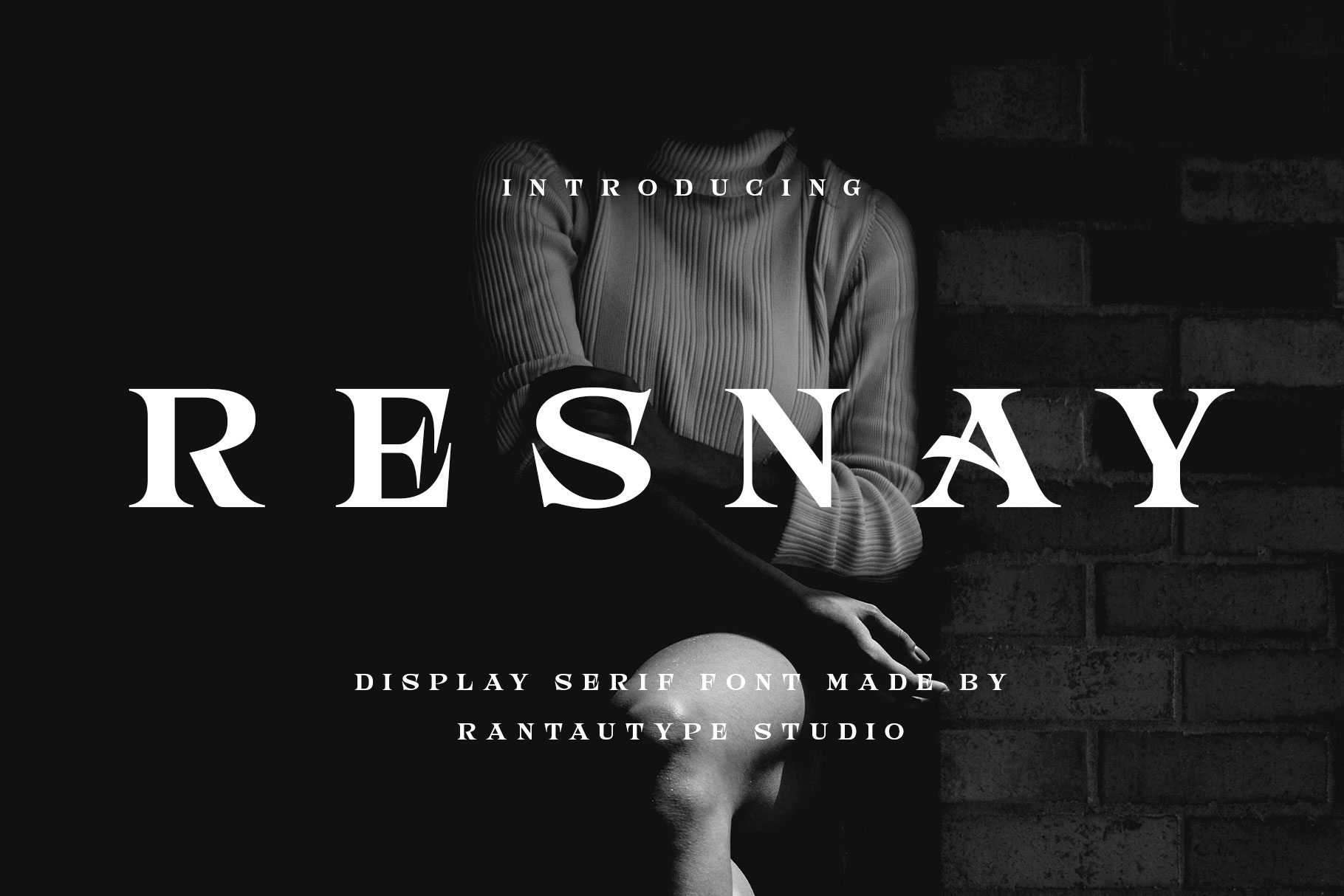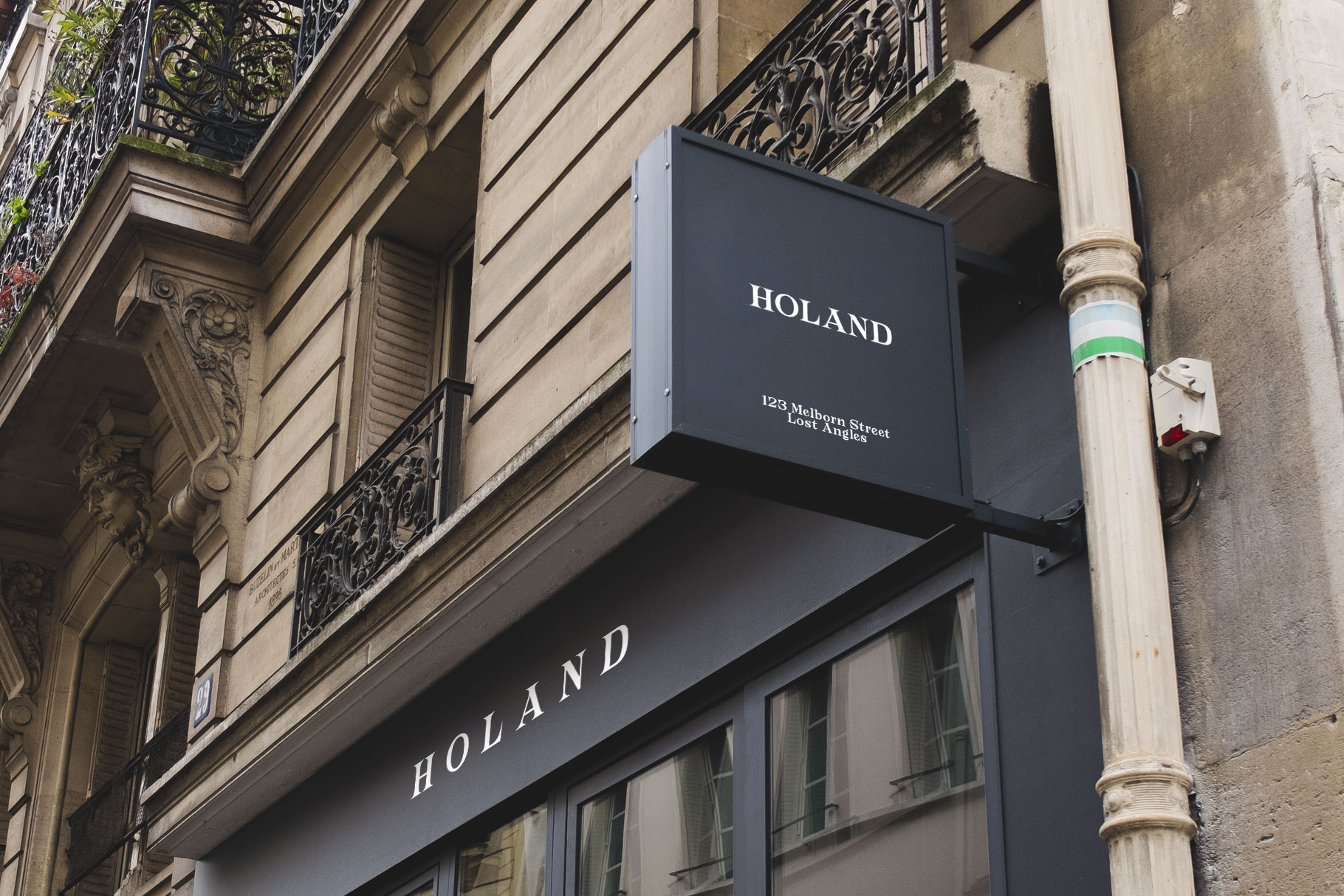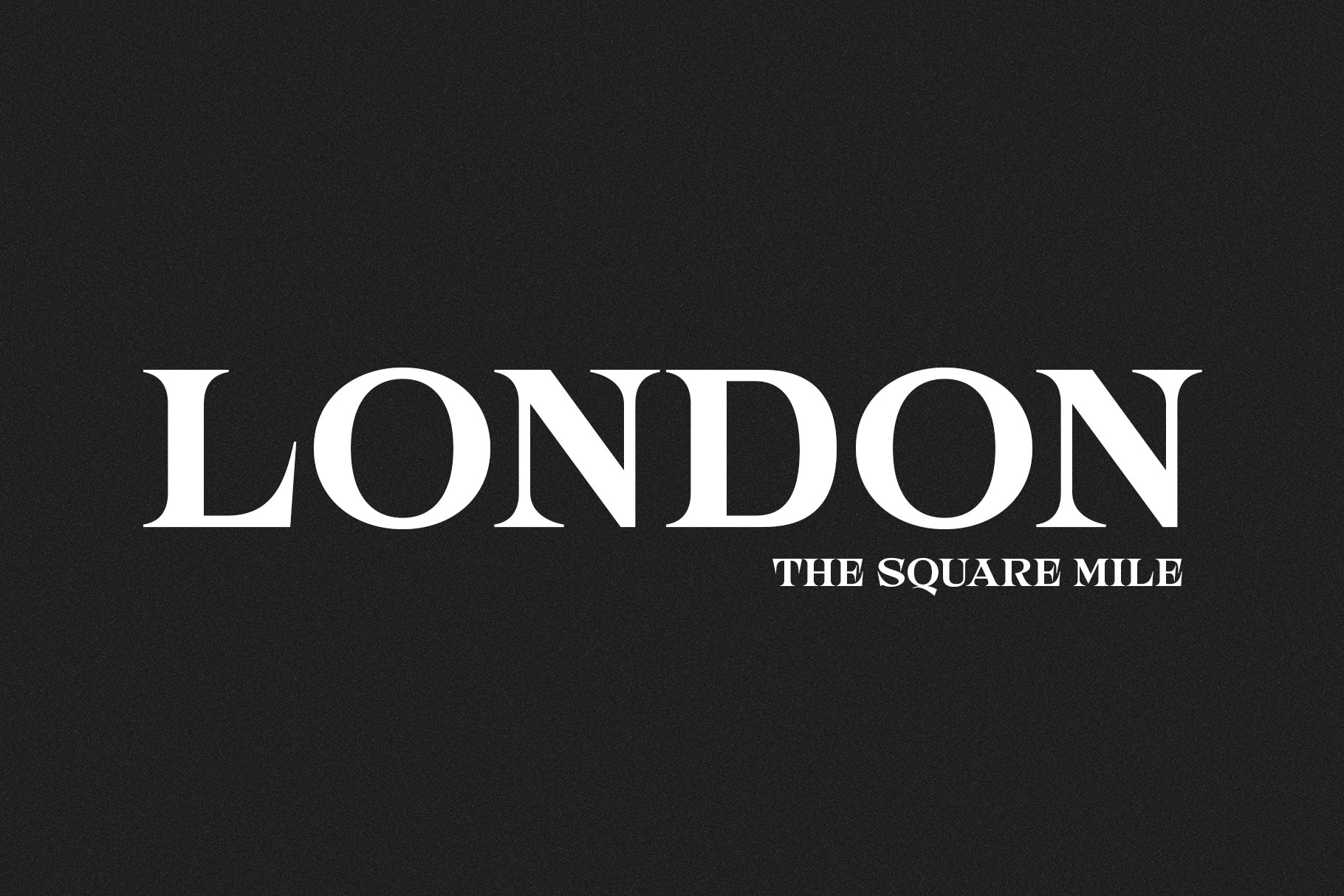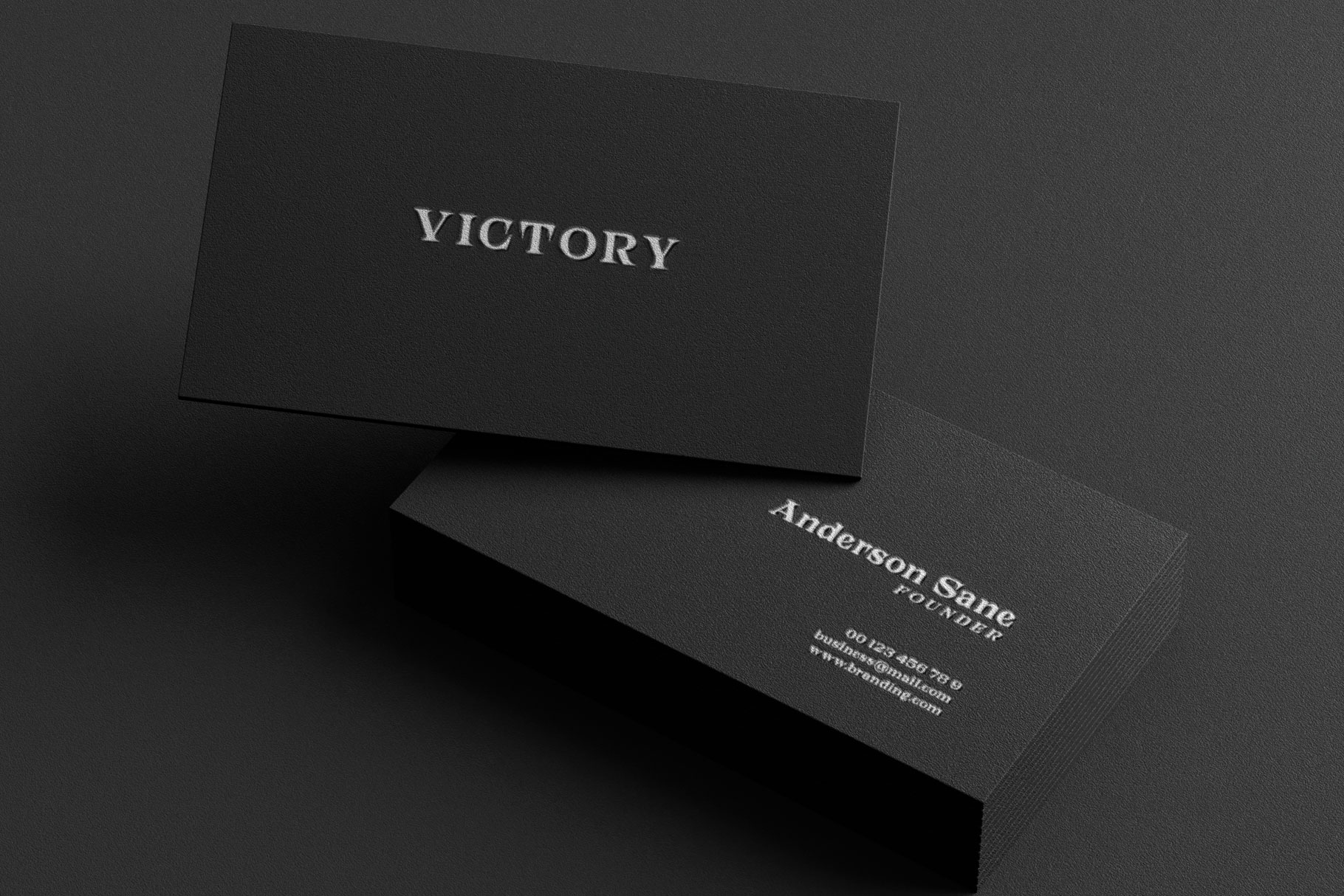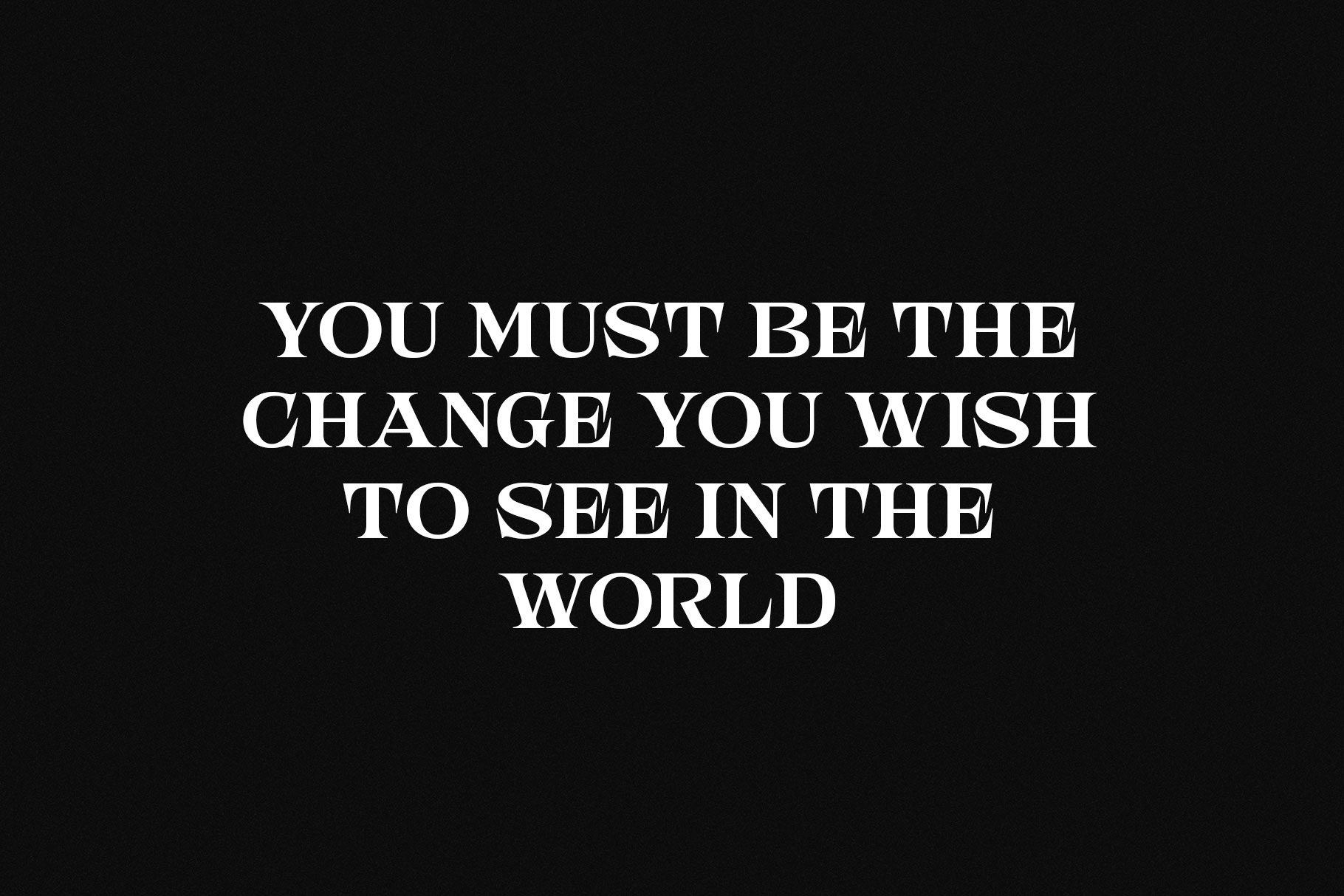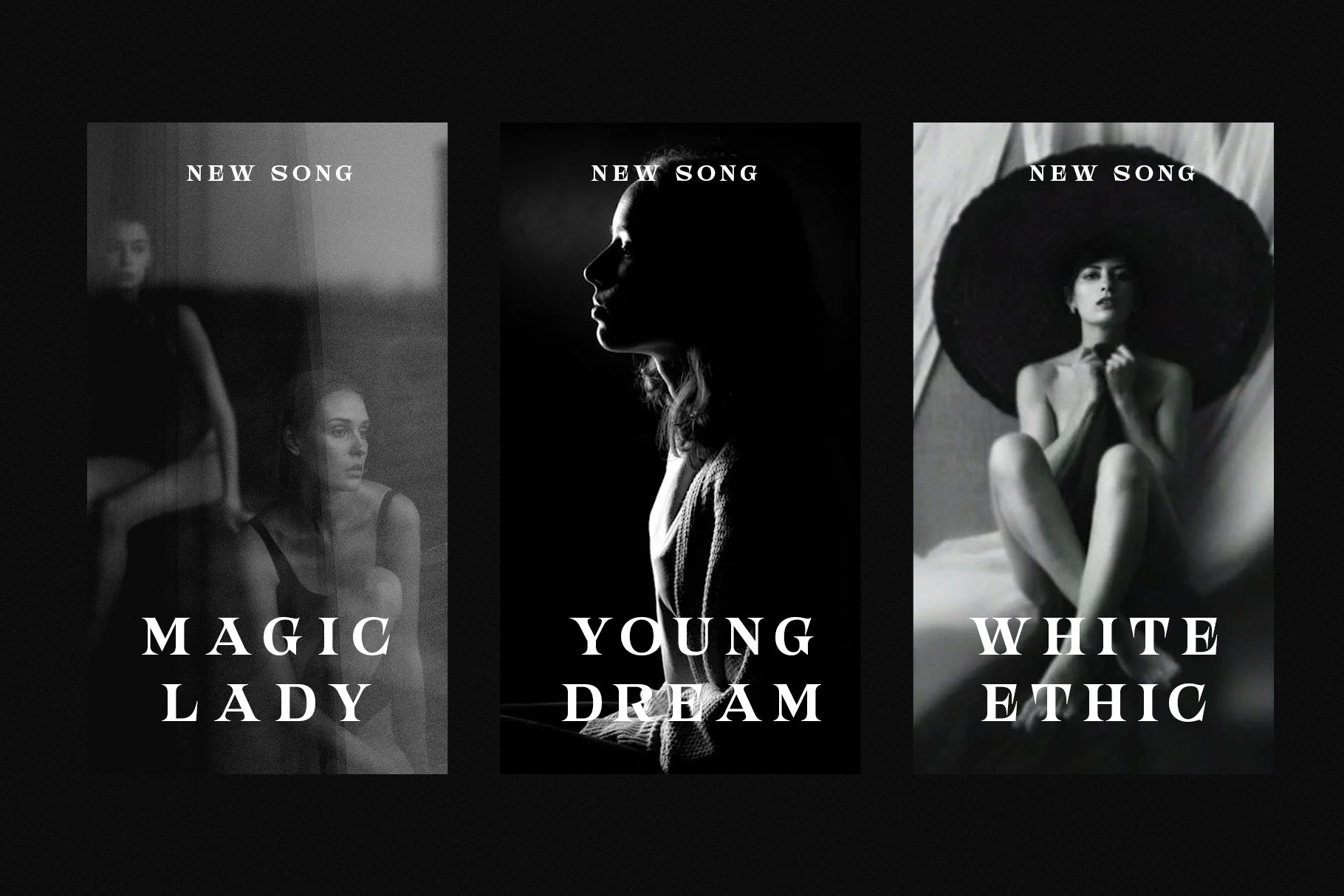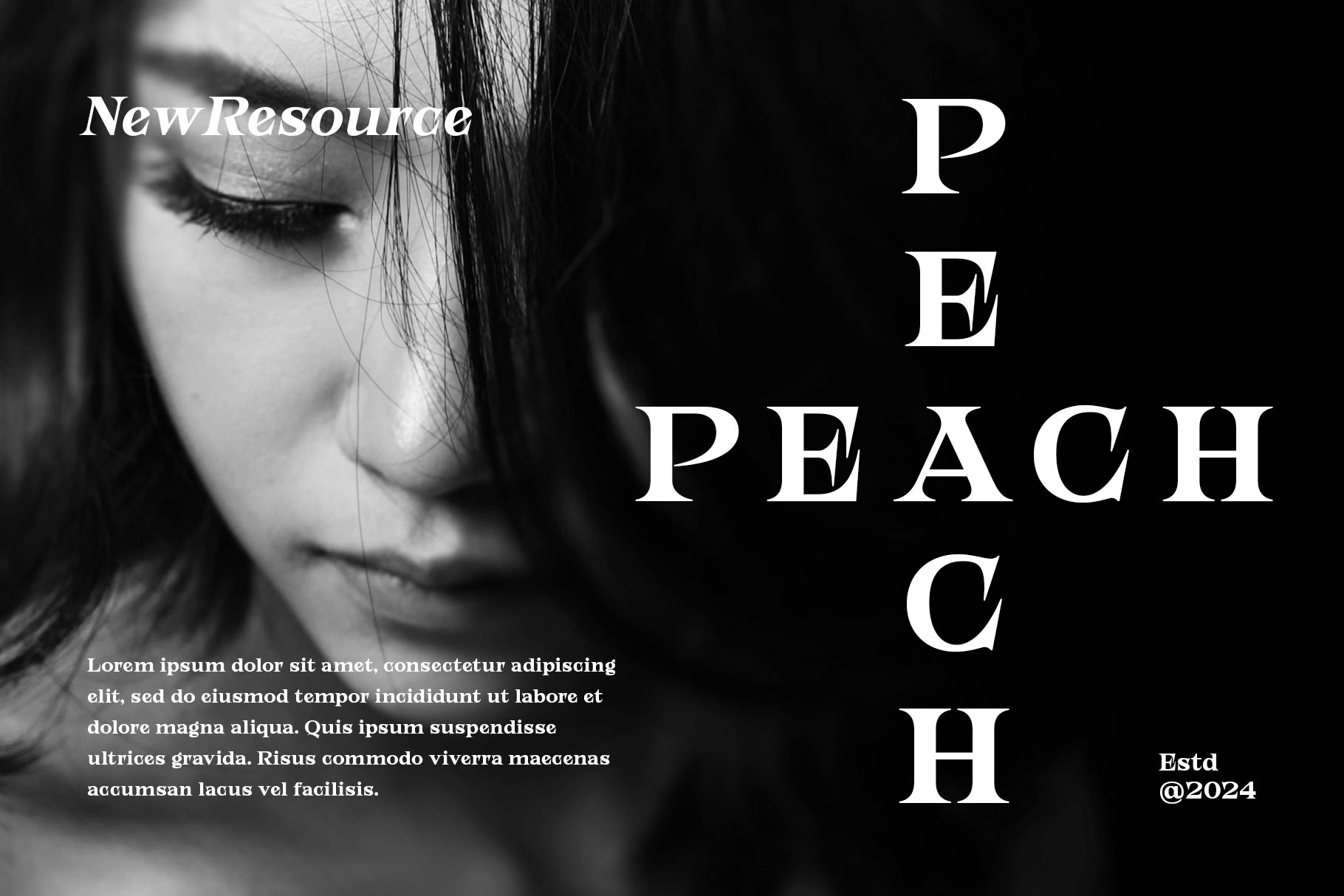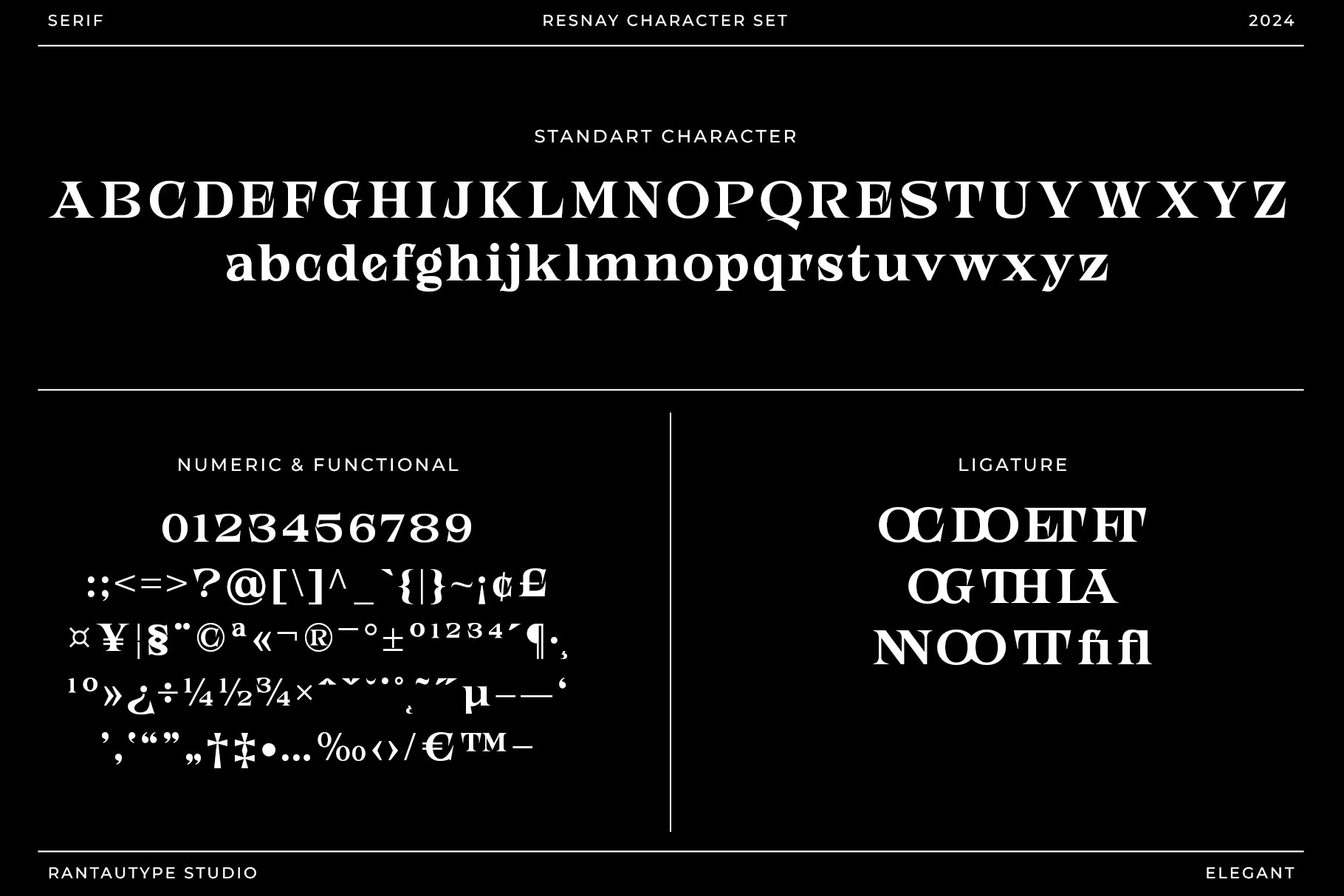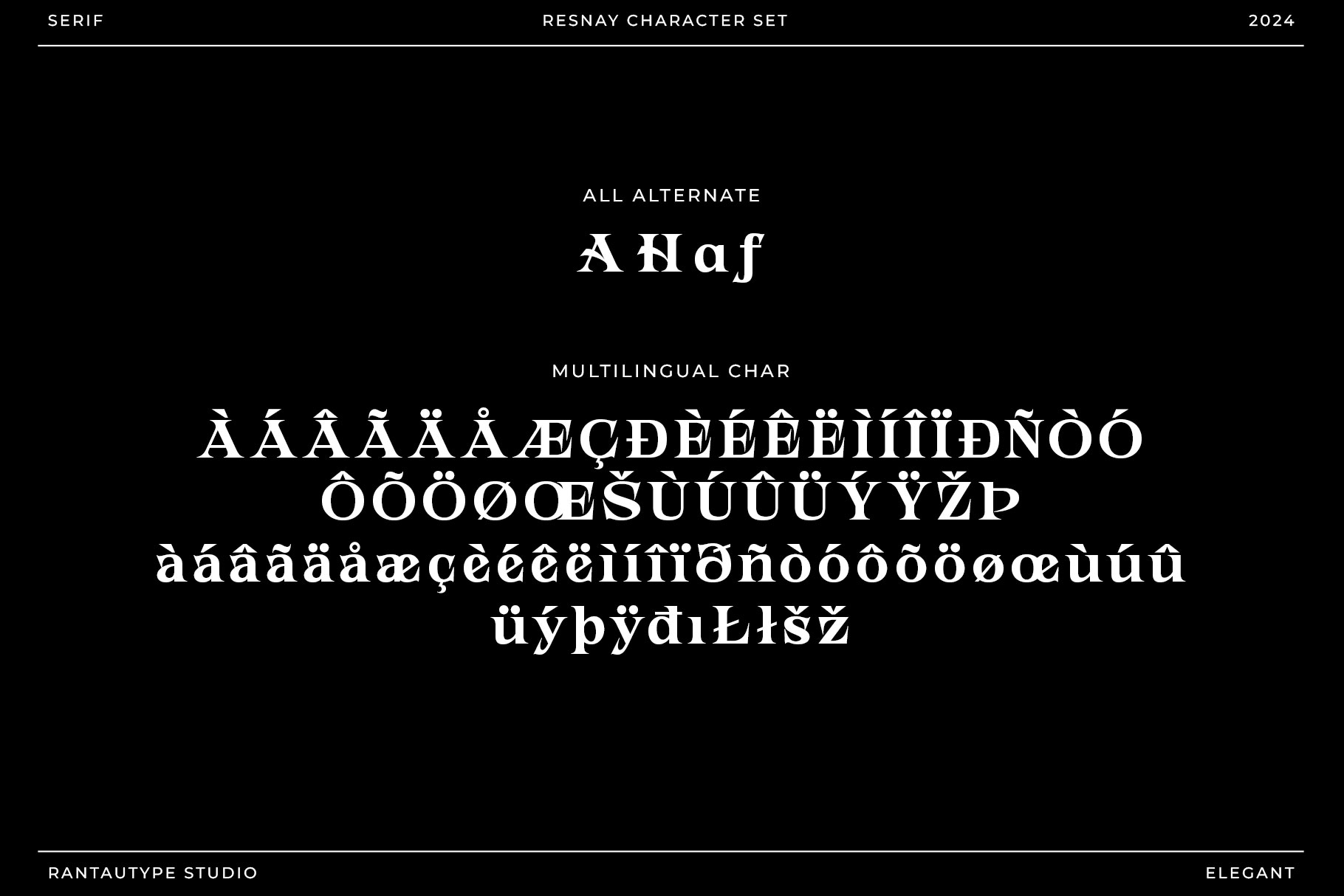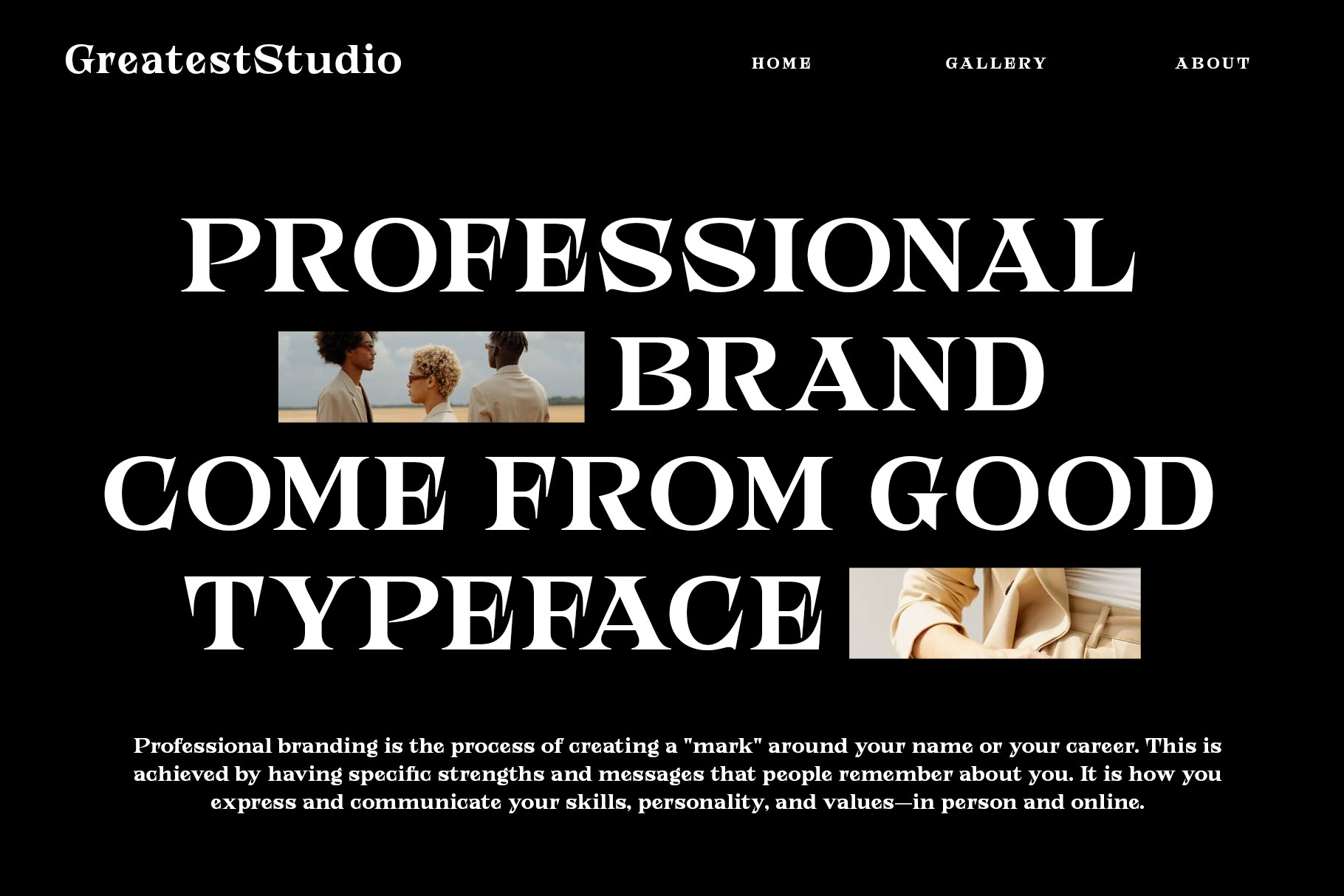
Resnay Display Serif Font
Resnay is display serif font with elegant and grace aura. Resnay is a perfectly choice for any creative endeavor, chic, lifestyle design such as logos, advertisements, stationery, branding project, display and magazine, invitation, corporate brand, product design, label, business project and many other project with elegant touch.